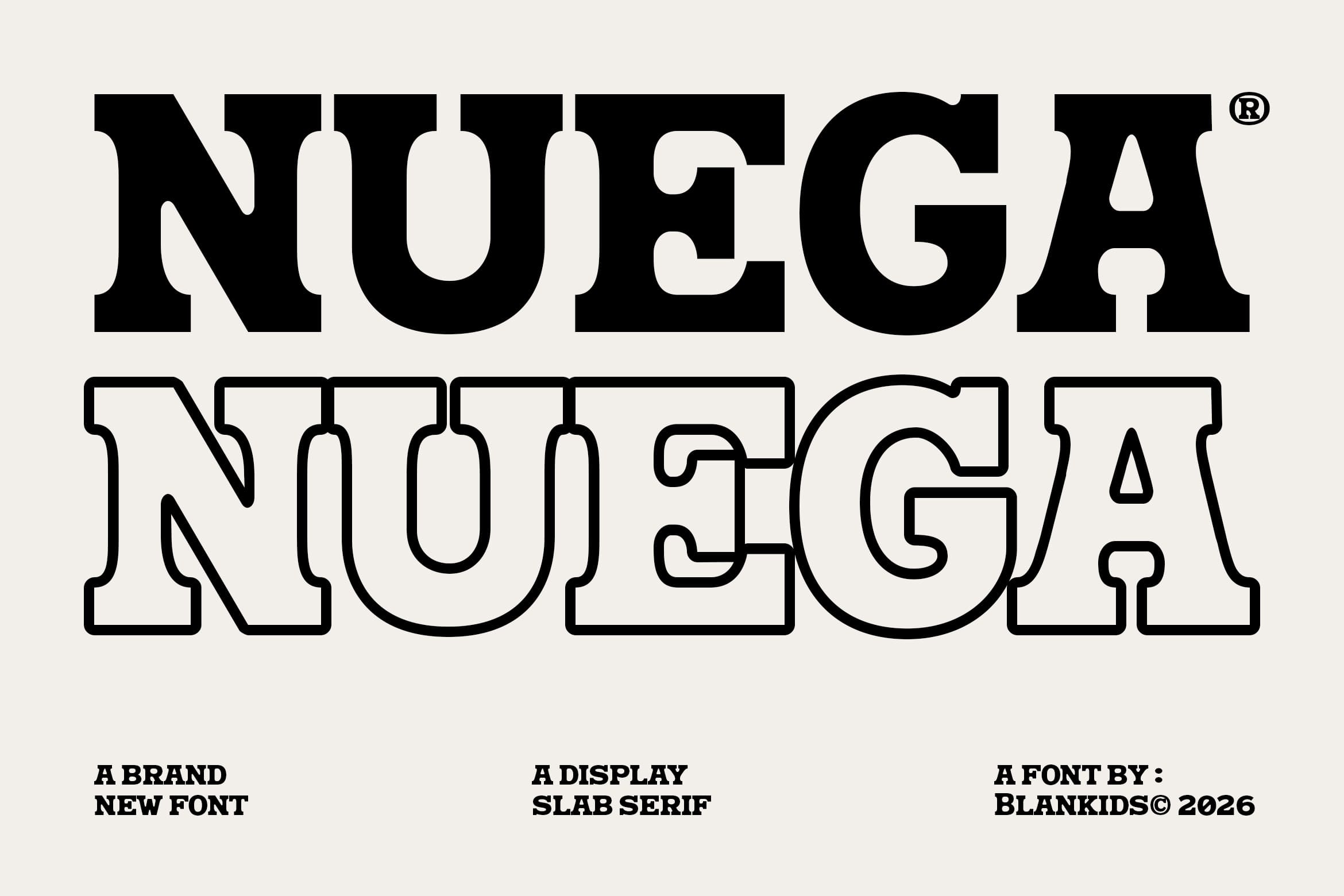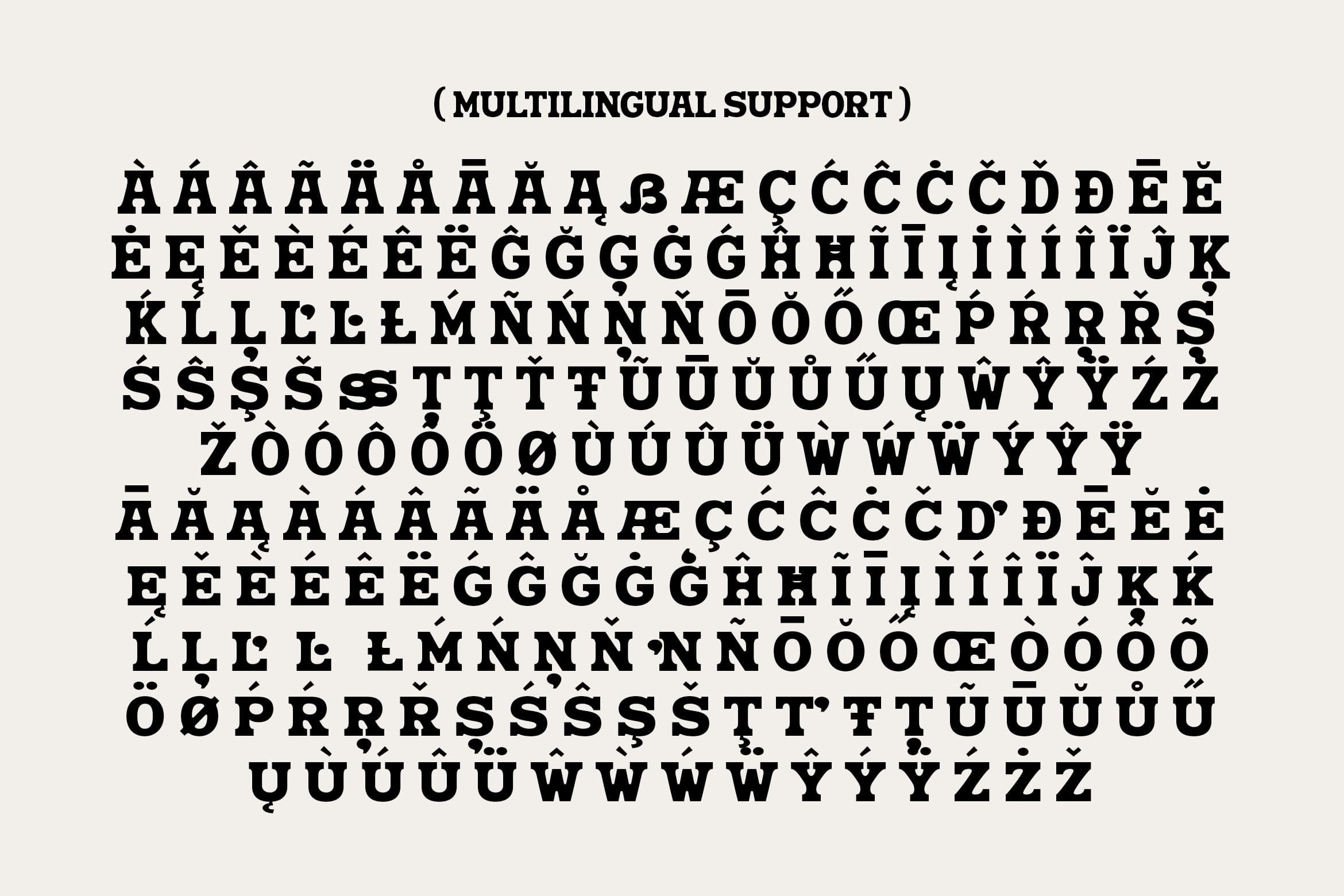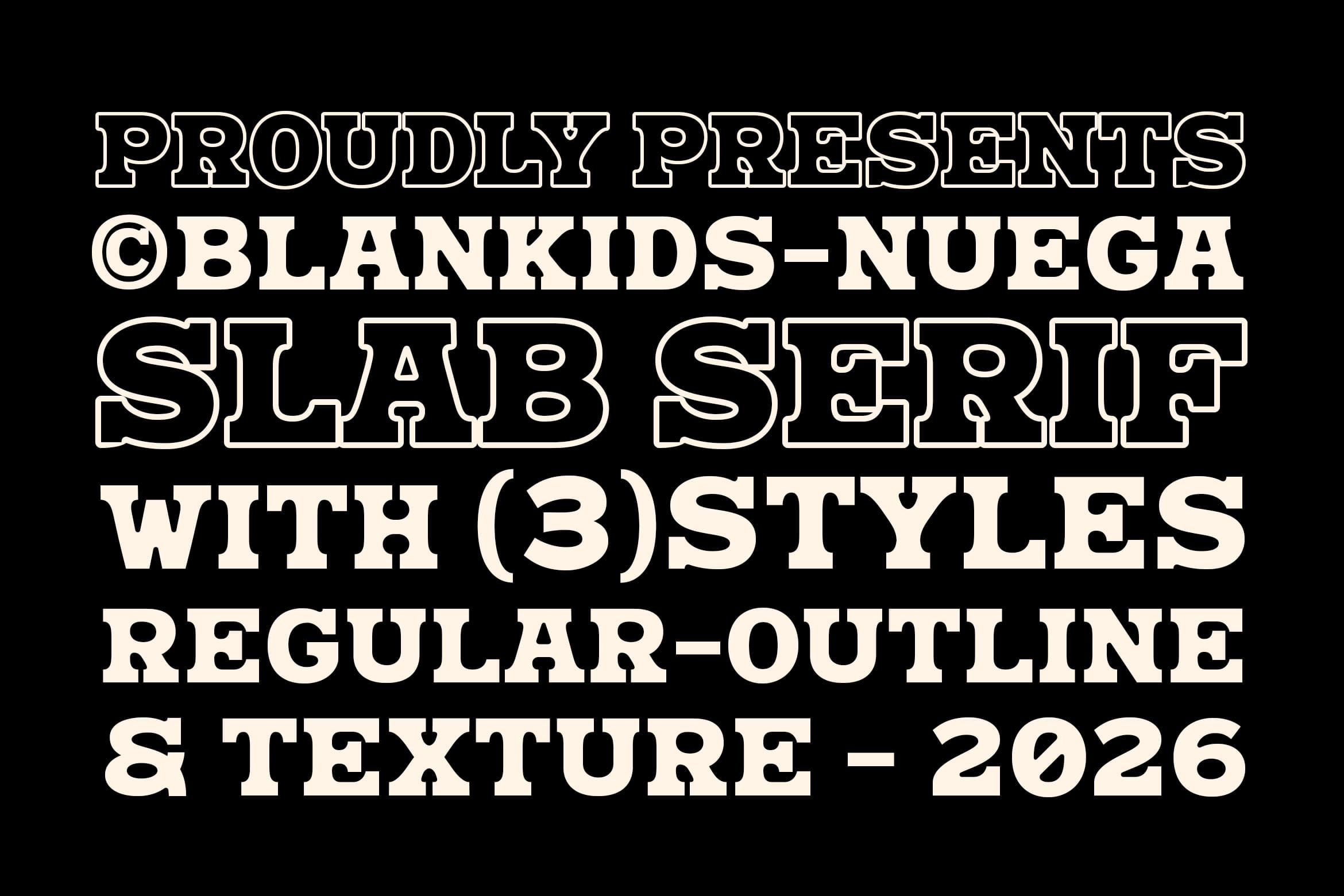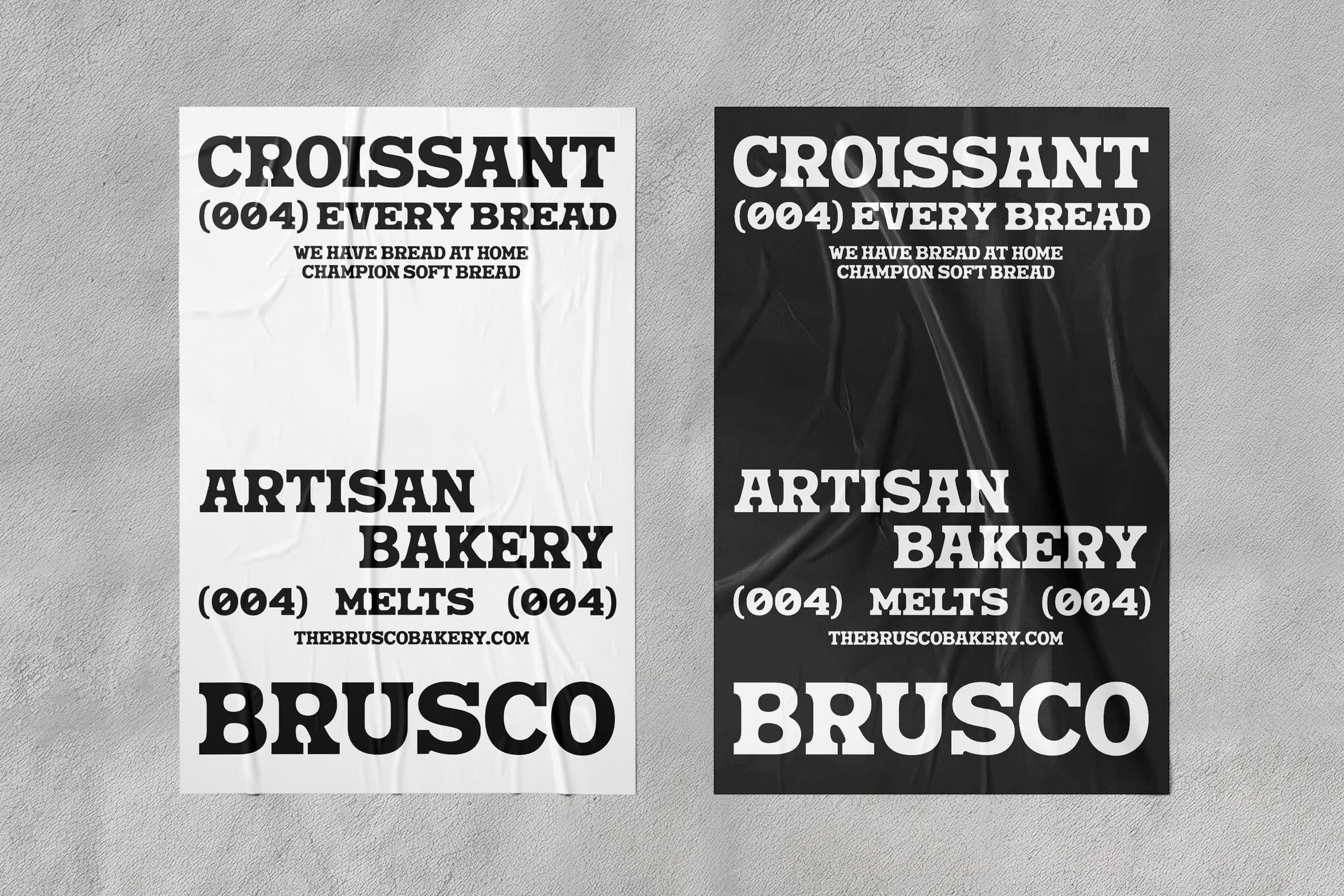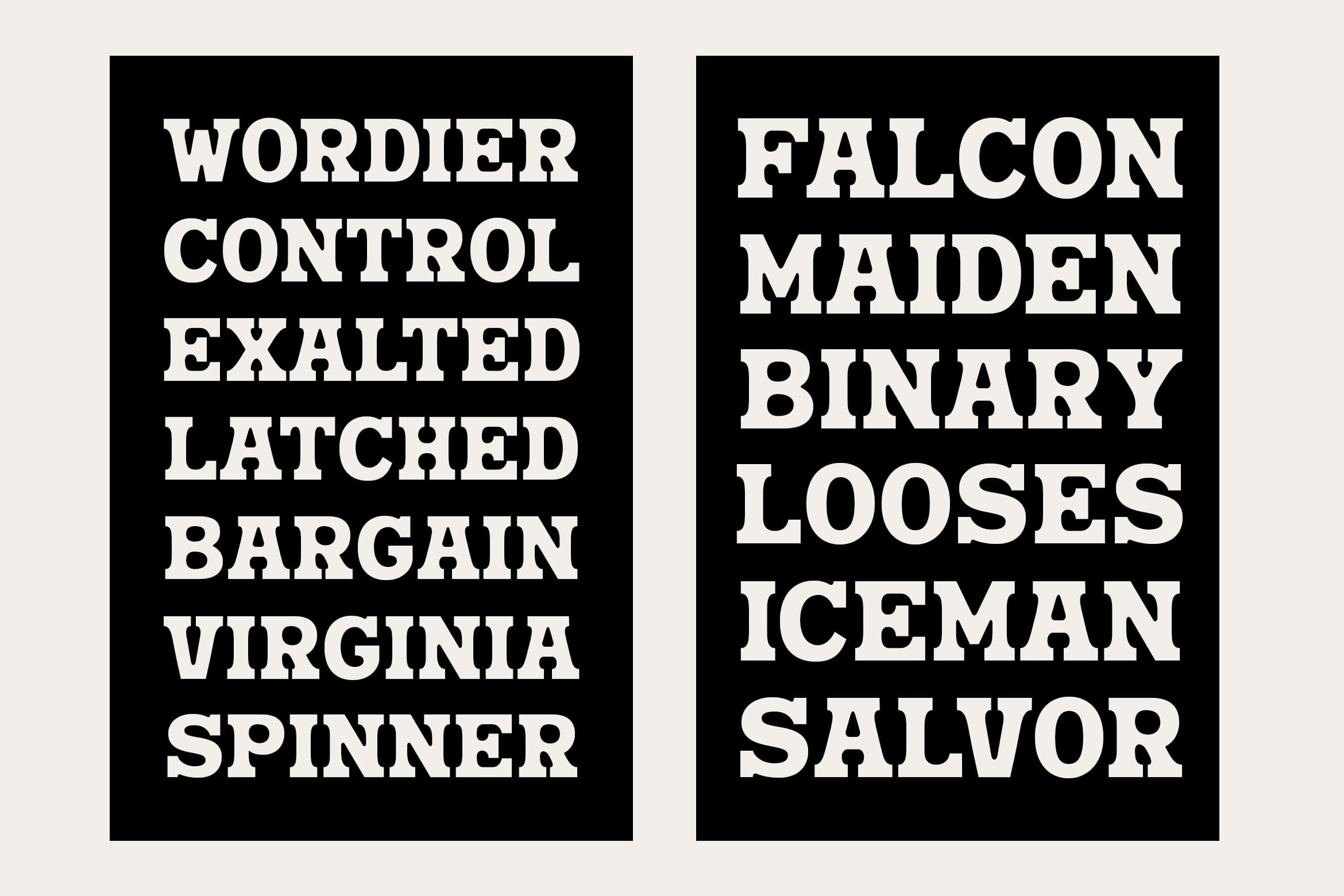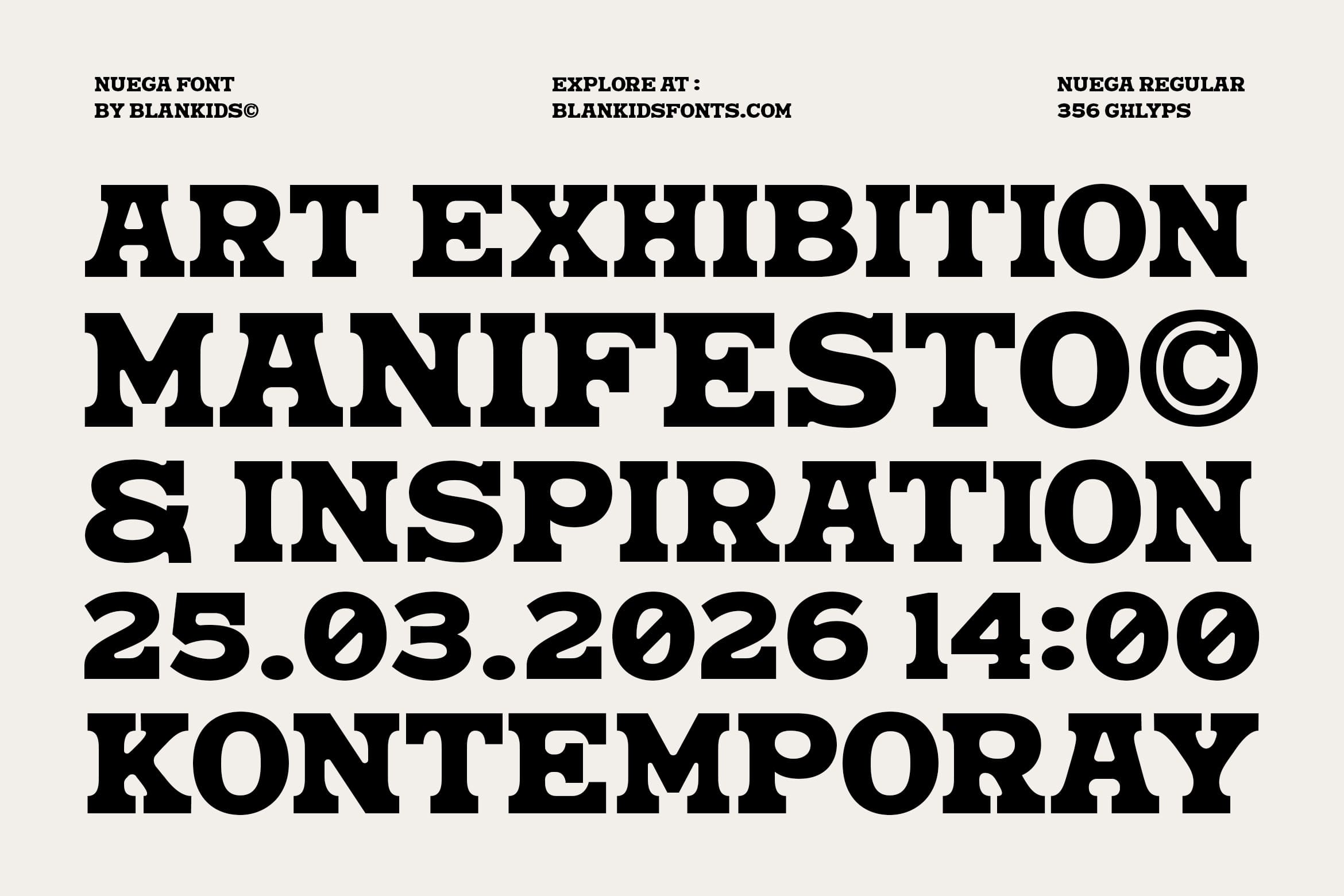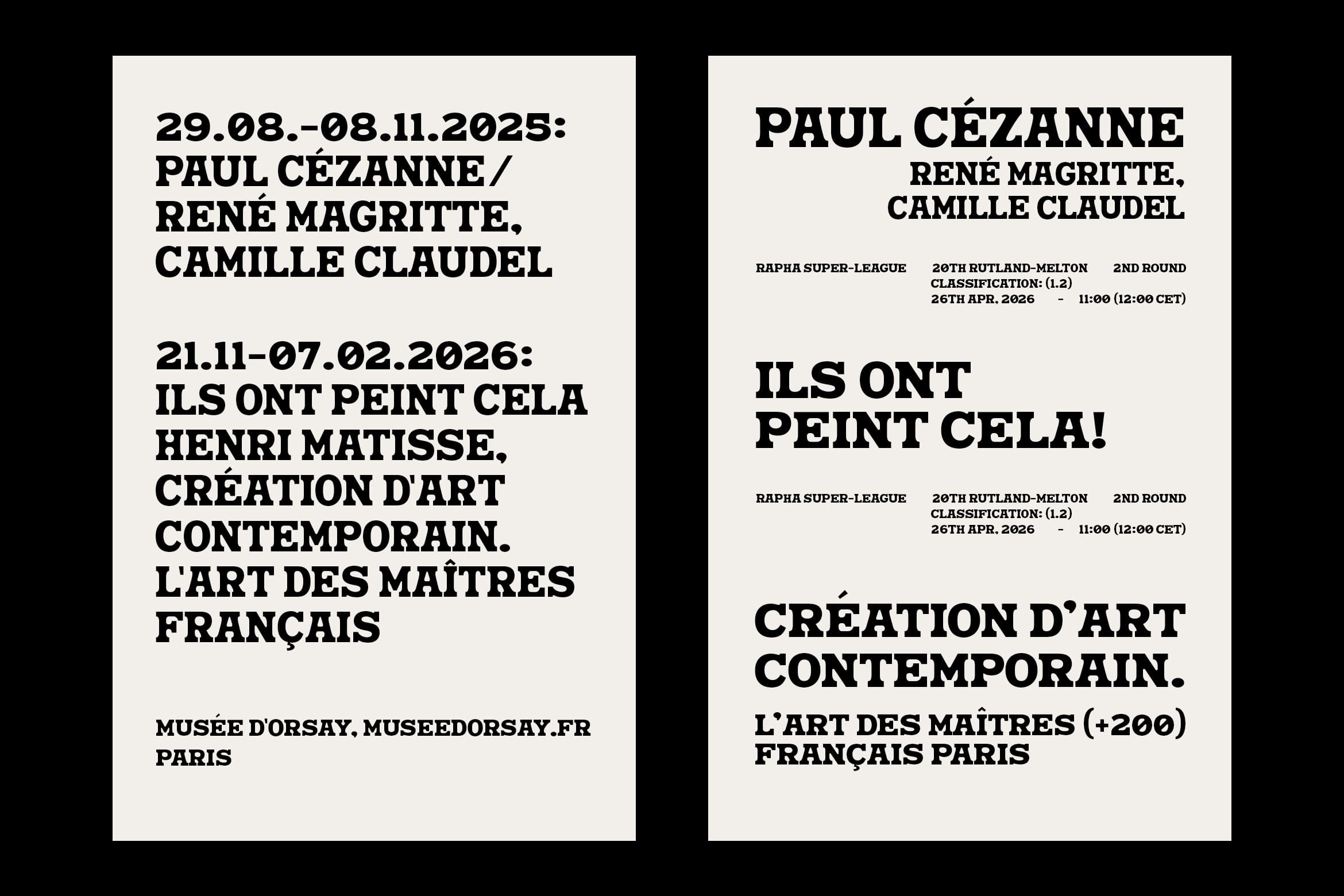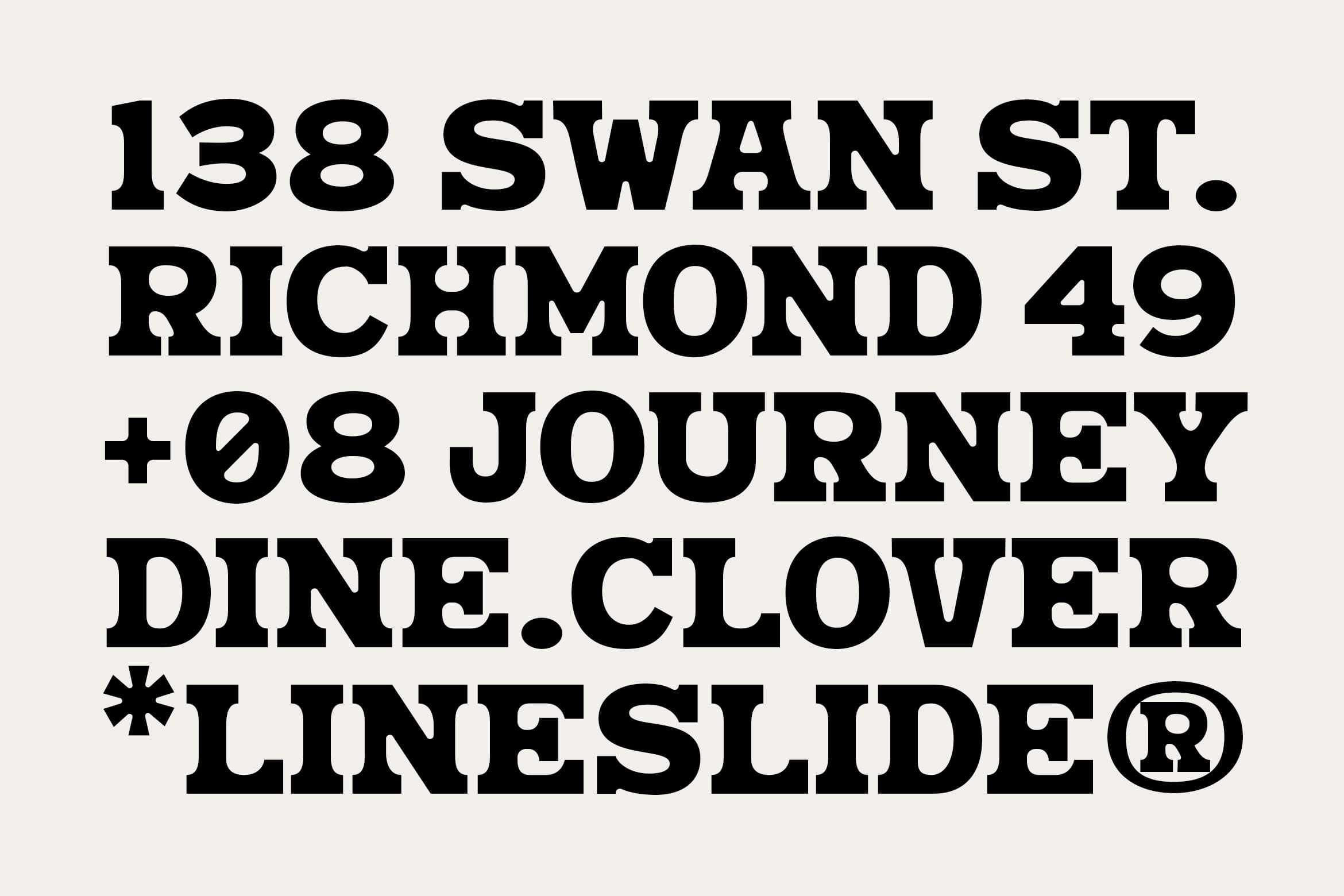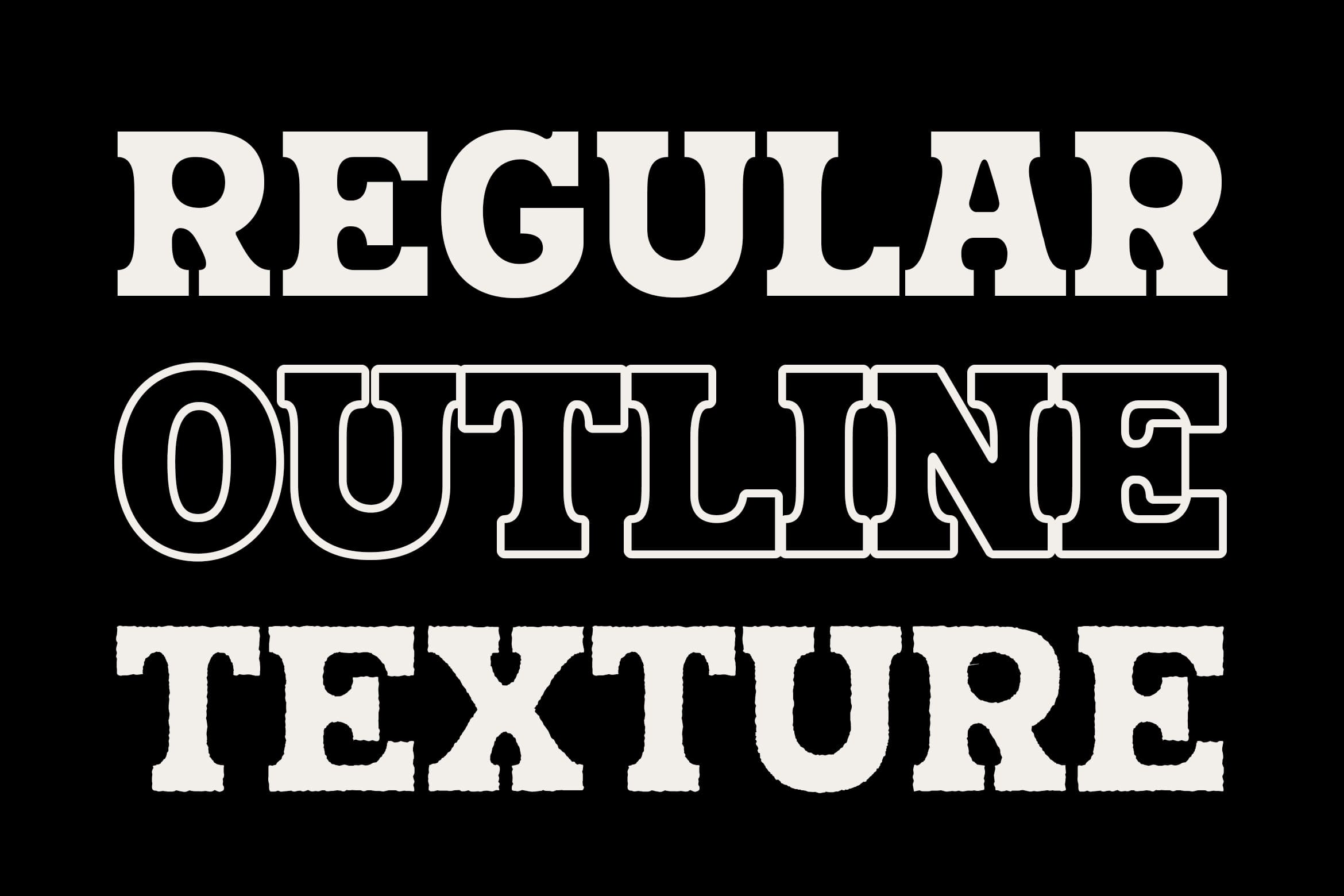
Nuega – Bold Slab Serif Font
Meet Nuega, a bold and impactful display slab serif font designed to make a strong visual statement. Nuega combines..classic aesthetics with a modern, daring edge, making it the perfect choice for designs that demand attention.
Featuring solid, heavy letterforms and unique serif details, this font is ideal for magazine headlines, art posters, brand identities, product packaging, website headers, and retro-modern fashion or editorial designs.
Perfect For:
- Posters & Flyers
- Editorial & Magazine Headlines
-Branding & Logo Design
- Merchandise & Apparel
- Website Headers & Social Media